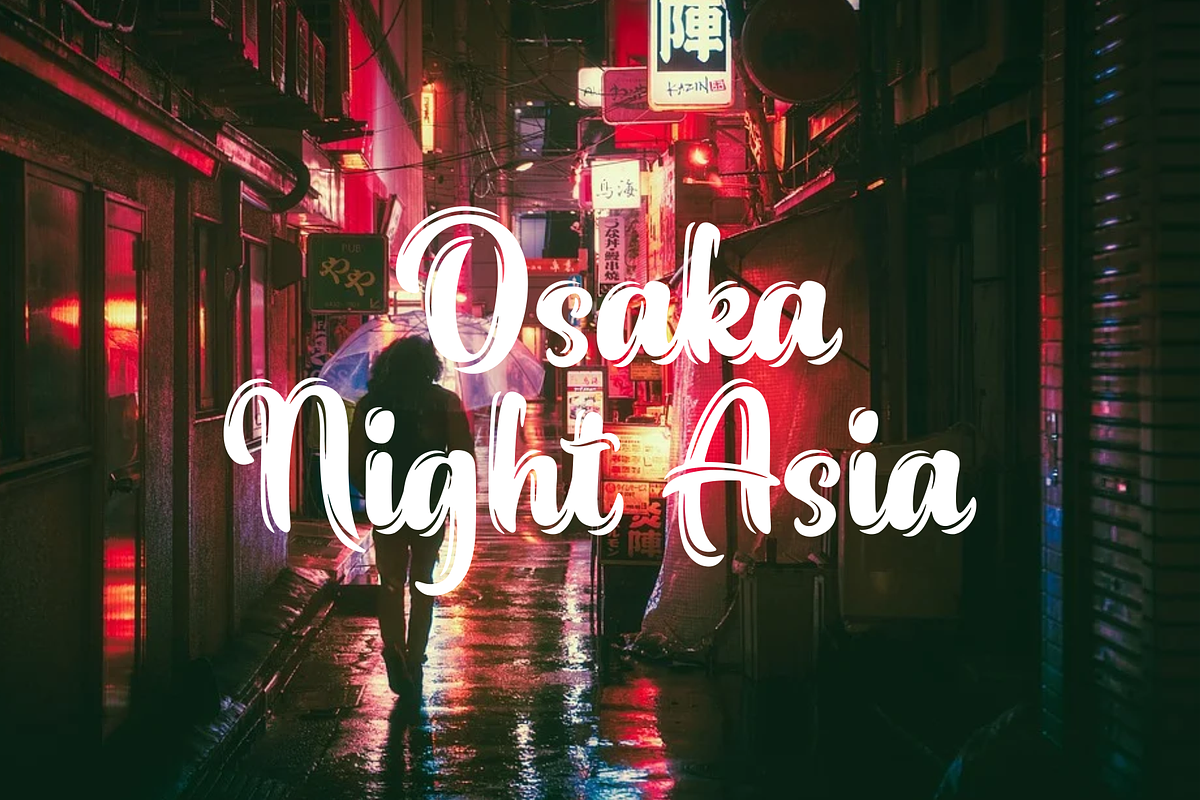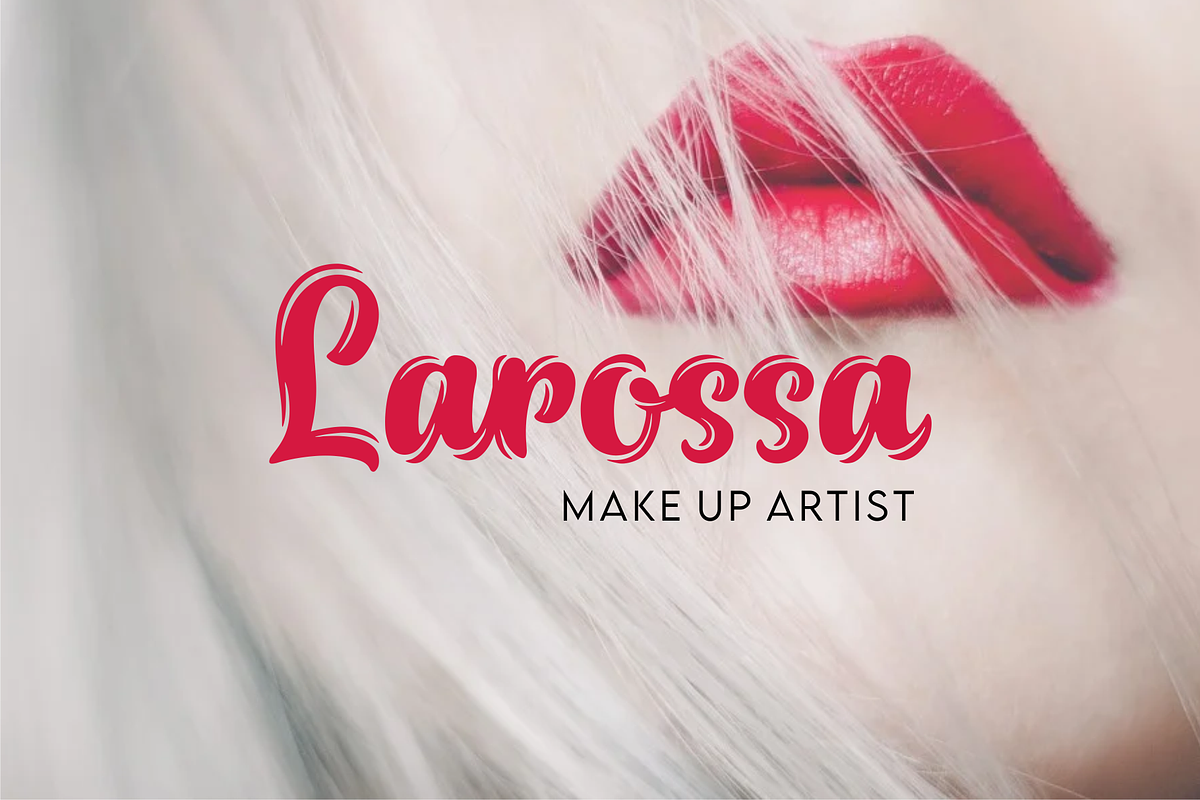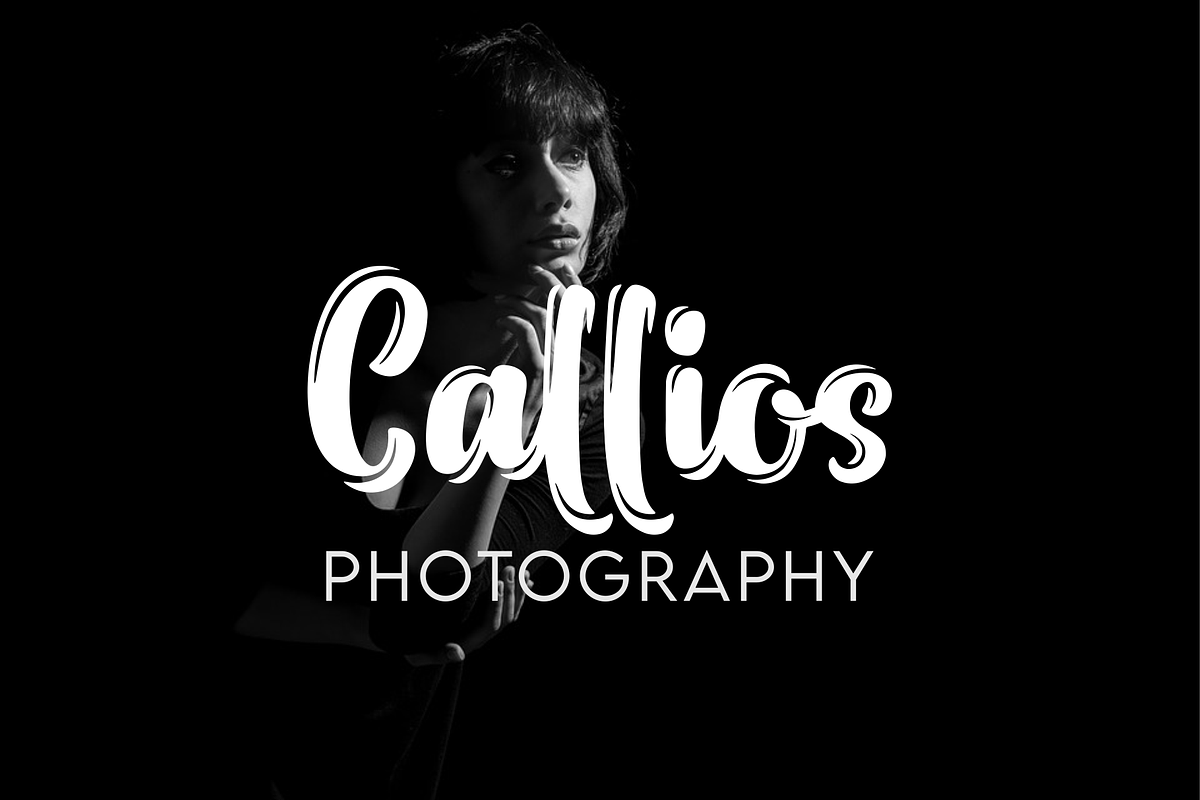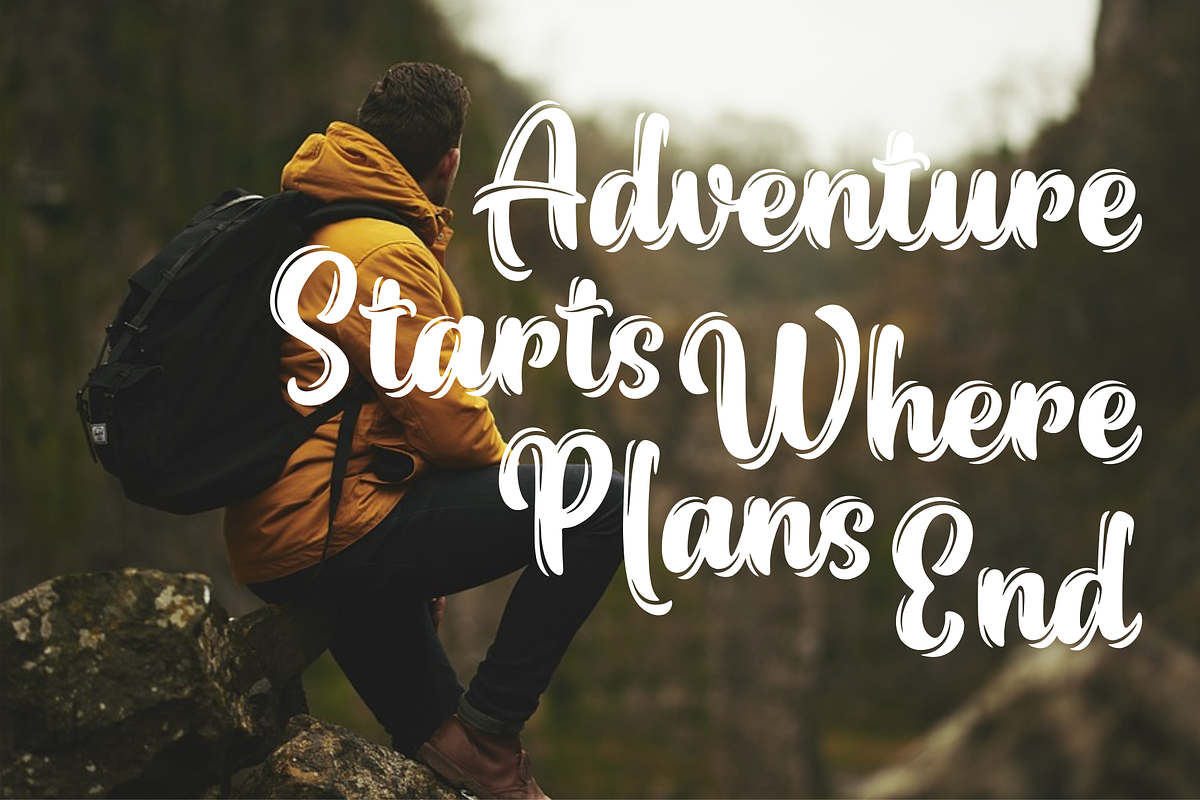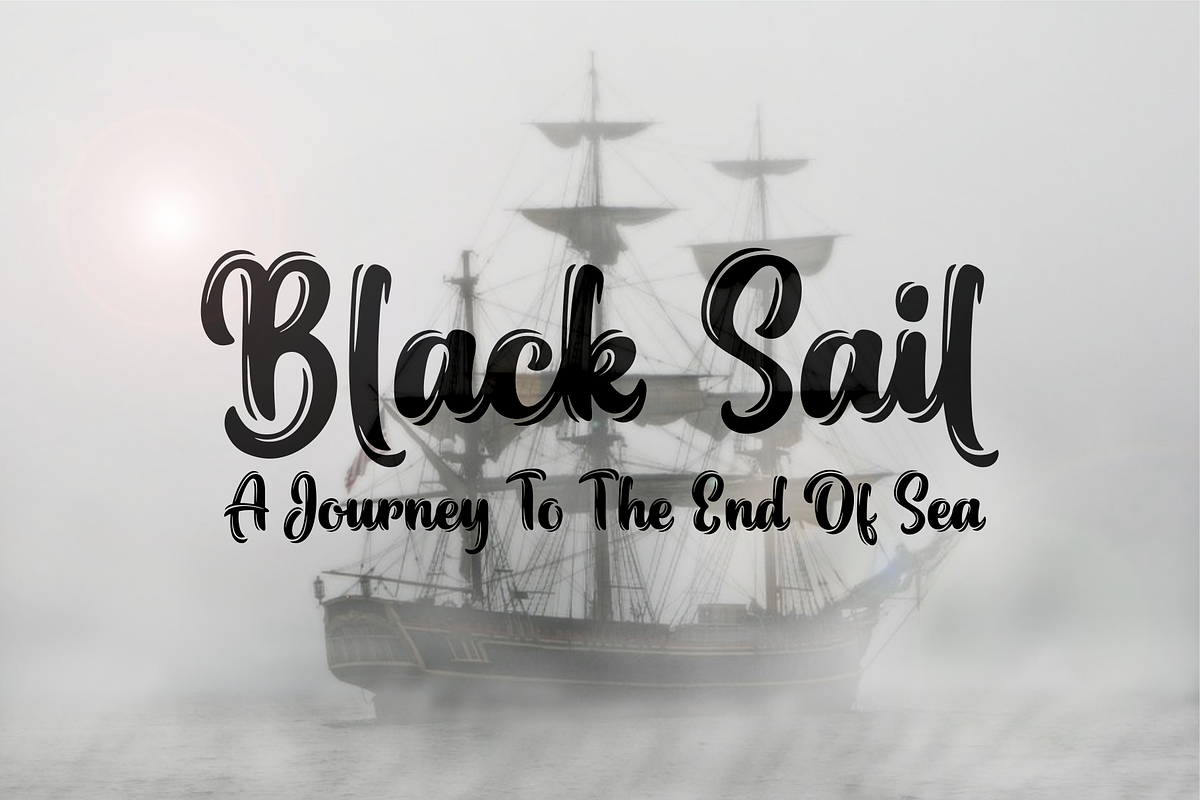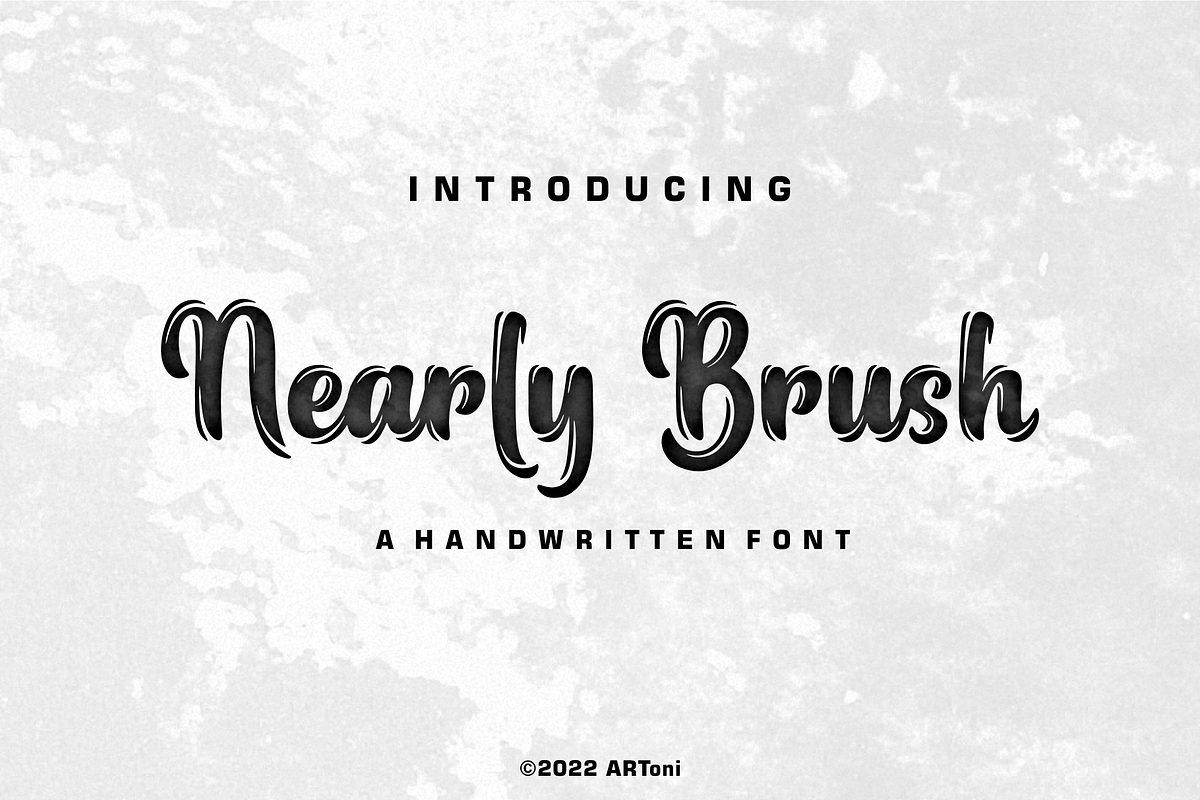
Nearly Brush
Nearly Brush is bold, stylish and elegant handwritten font with distinctive strokes. Its round letters will add a luxury spark to any design project that you wish to create!